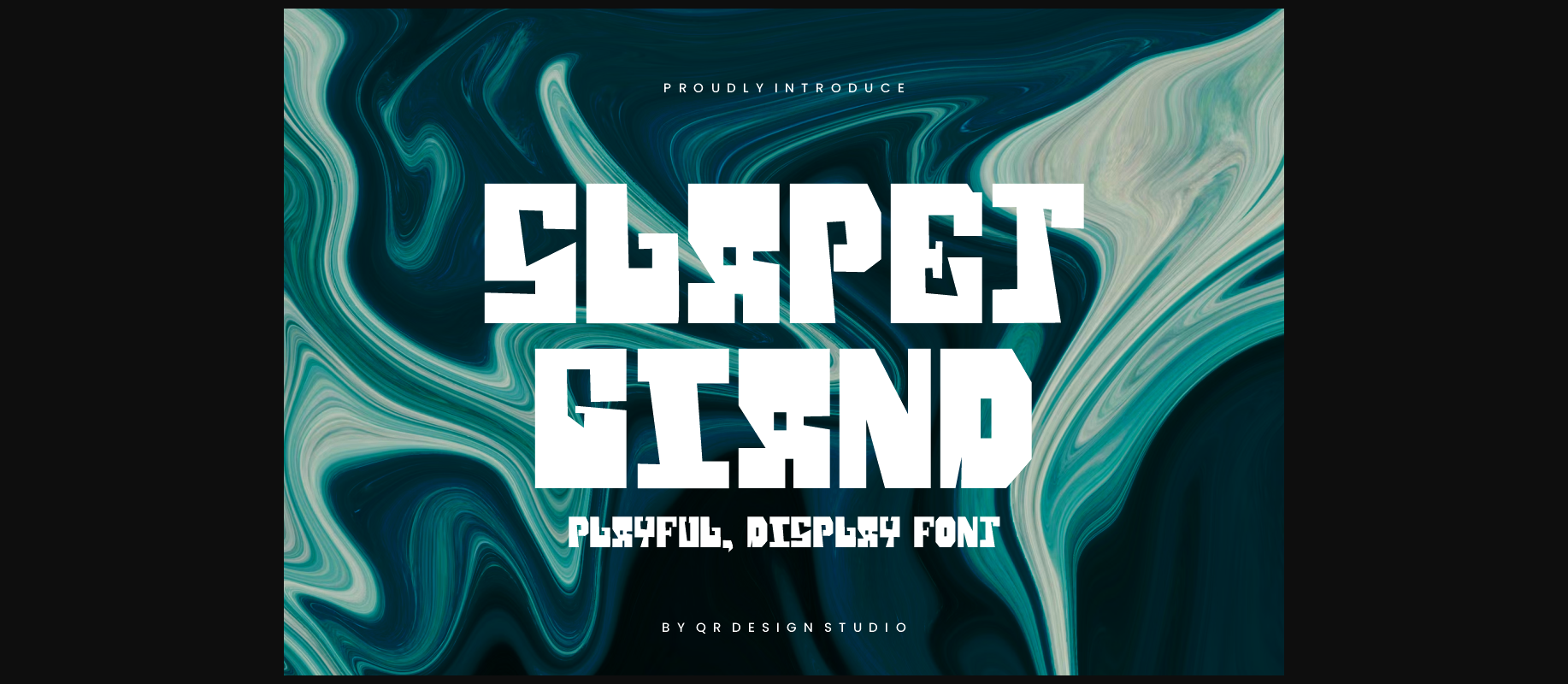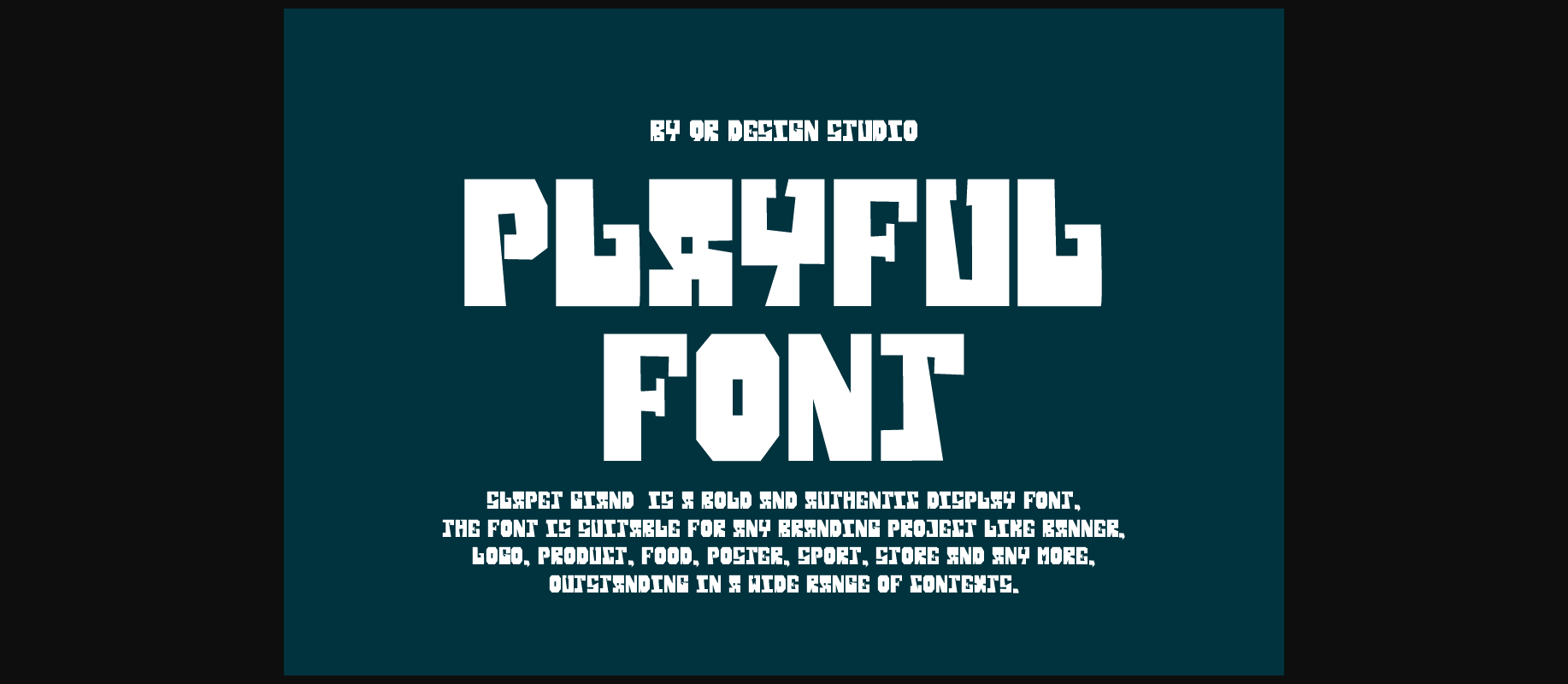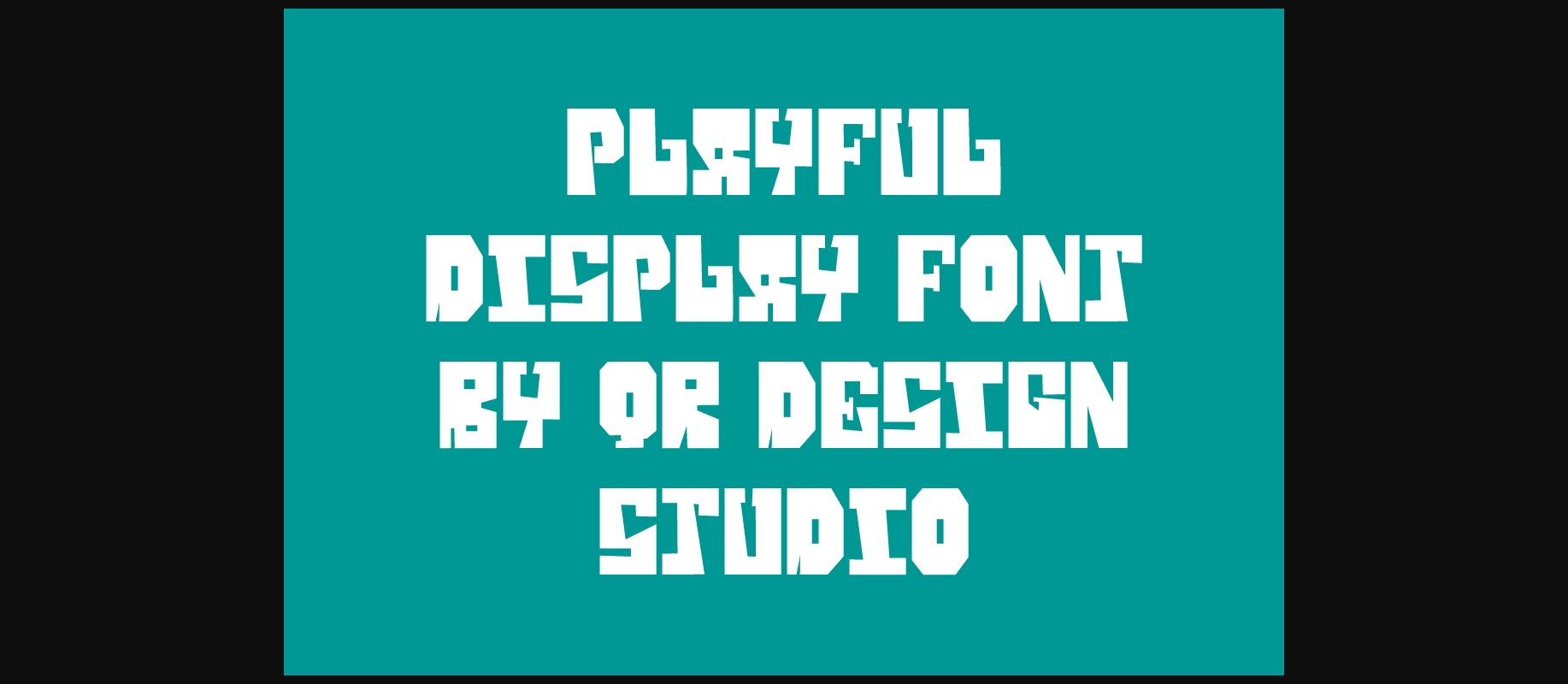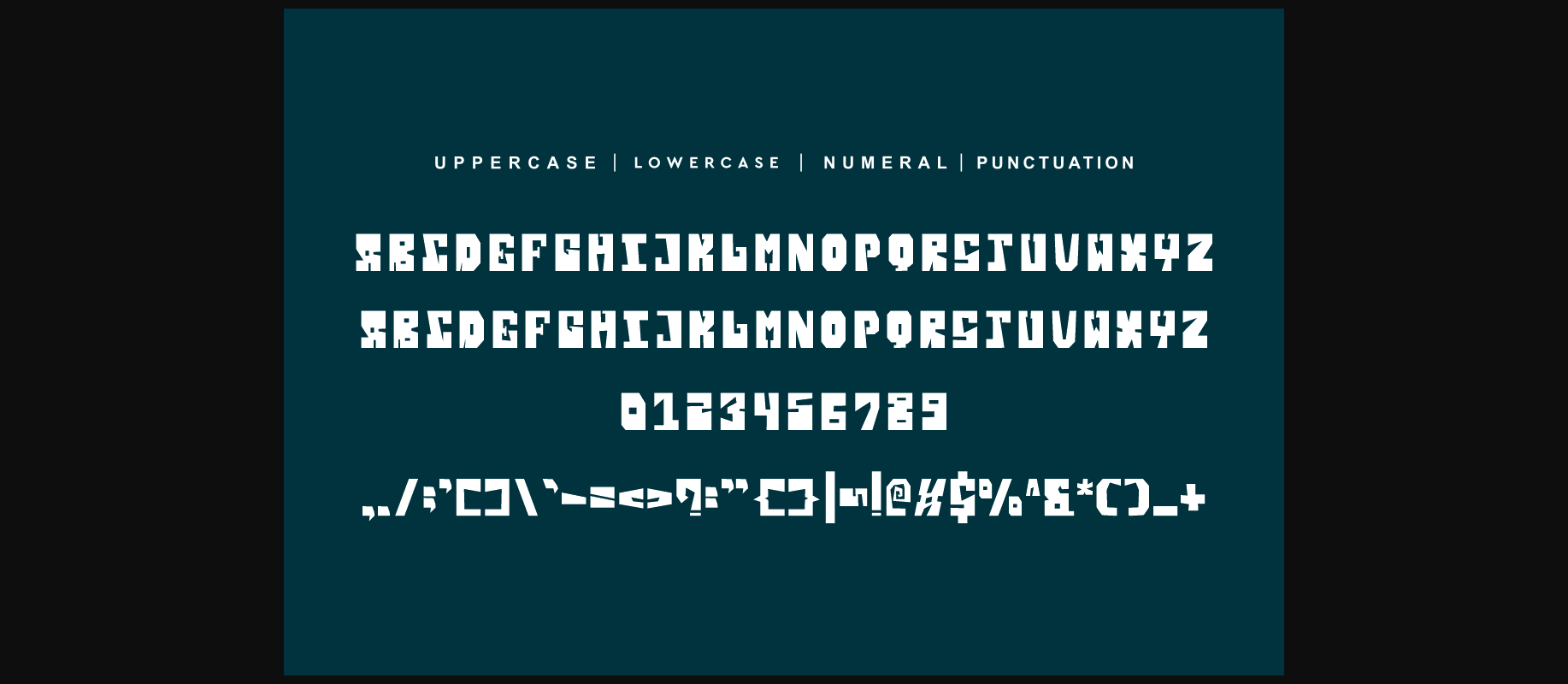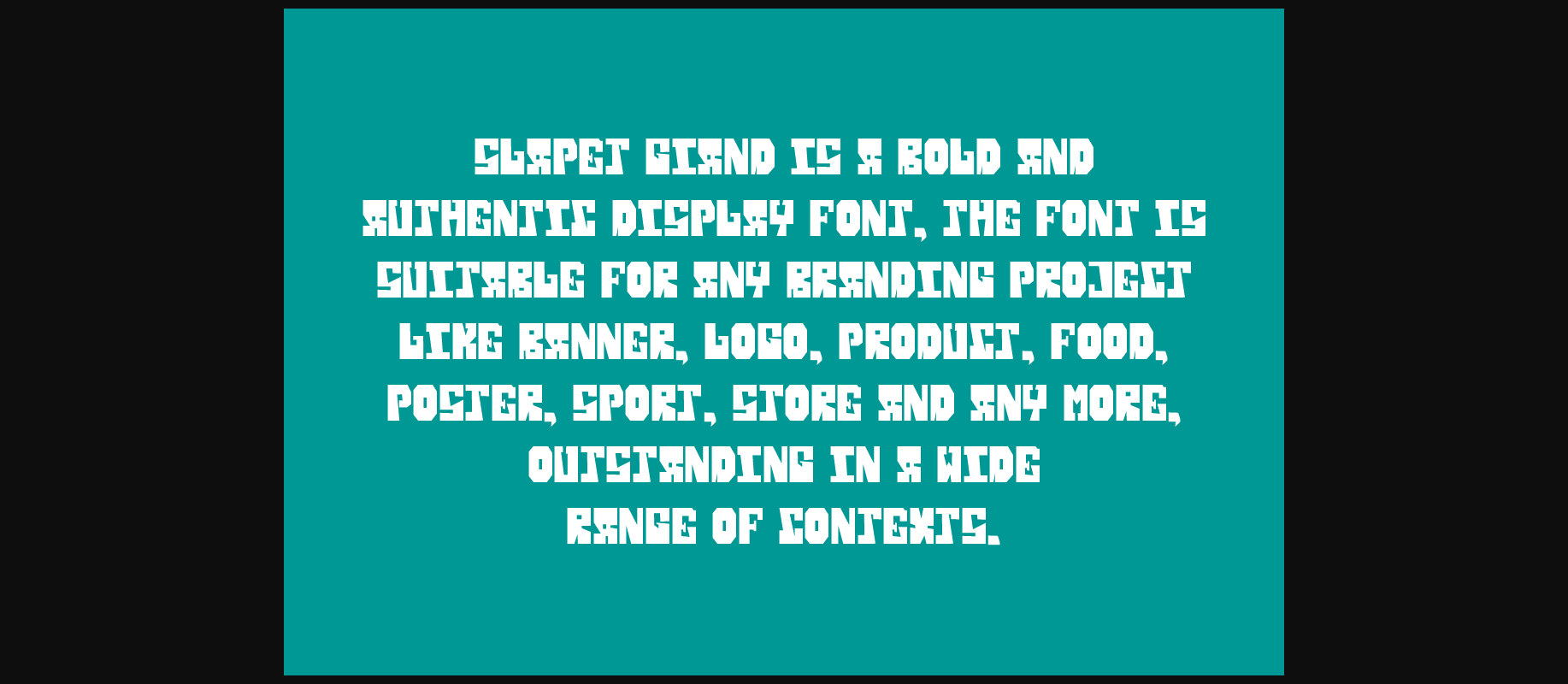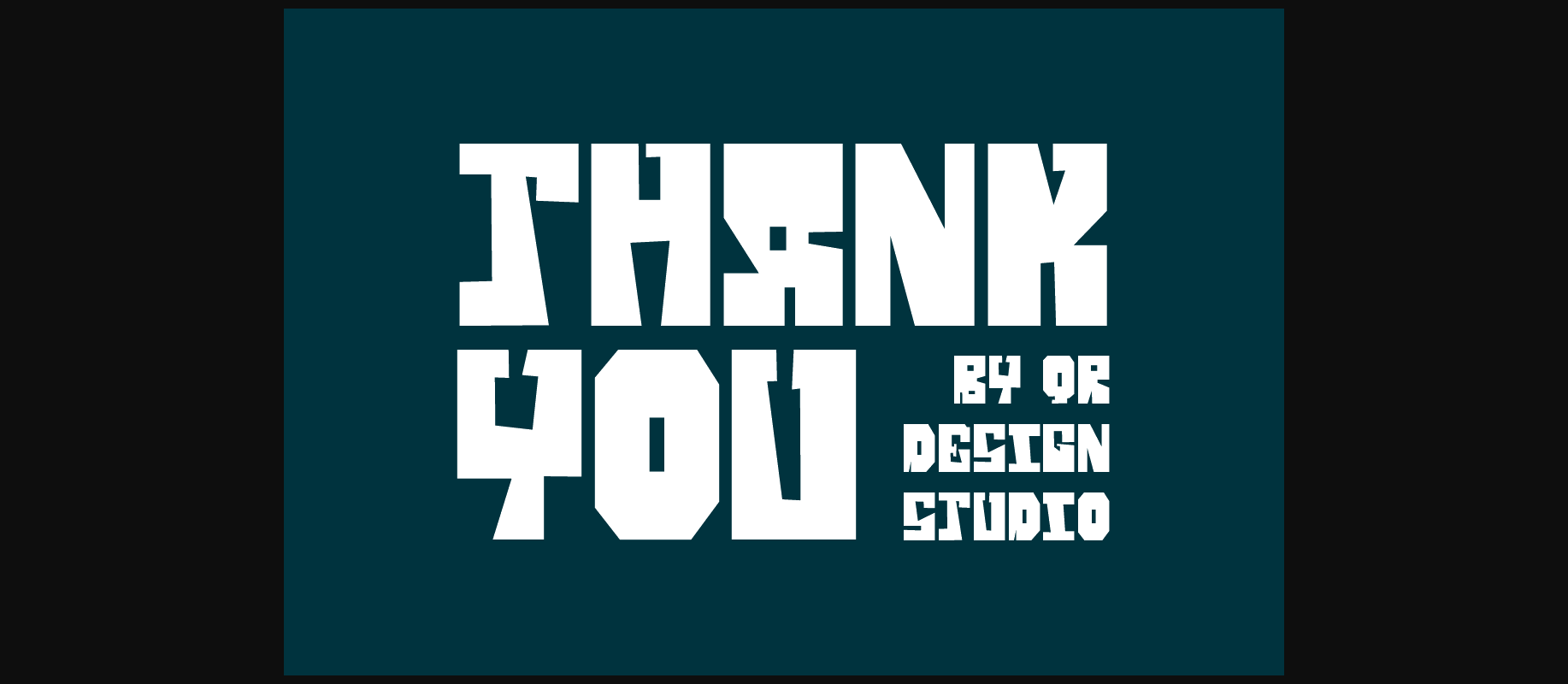
Slapet Giand is an incredibly cool and unique decorative font. It has a modern yet whimsical style and it will undoubtedly immerse your designs into a magical world.